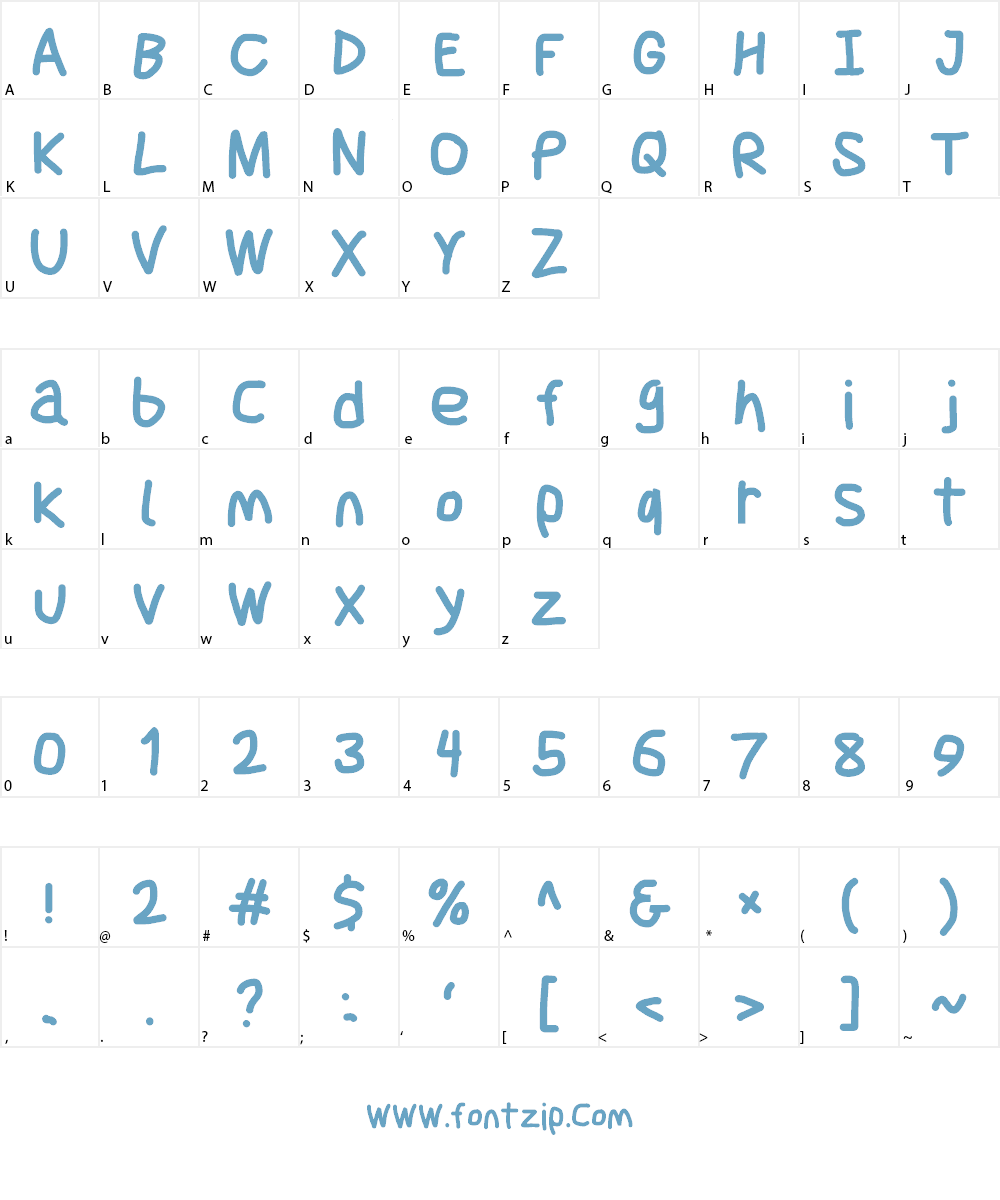
This handwriting font's name is Swedish. Jag Älskar Dig means "I Love You" in Swedish.
The weights' names are in Swedish, except for the Italics, which just have Oblique tacked on the end.